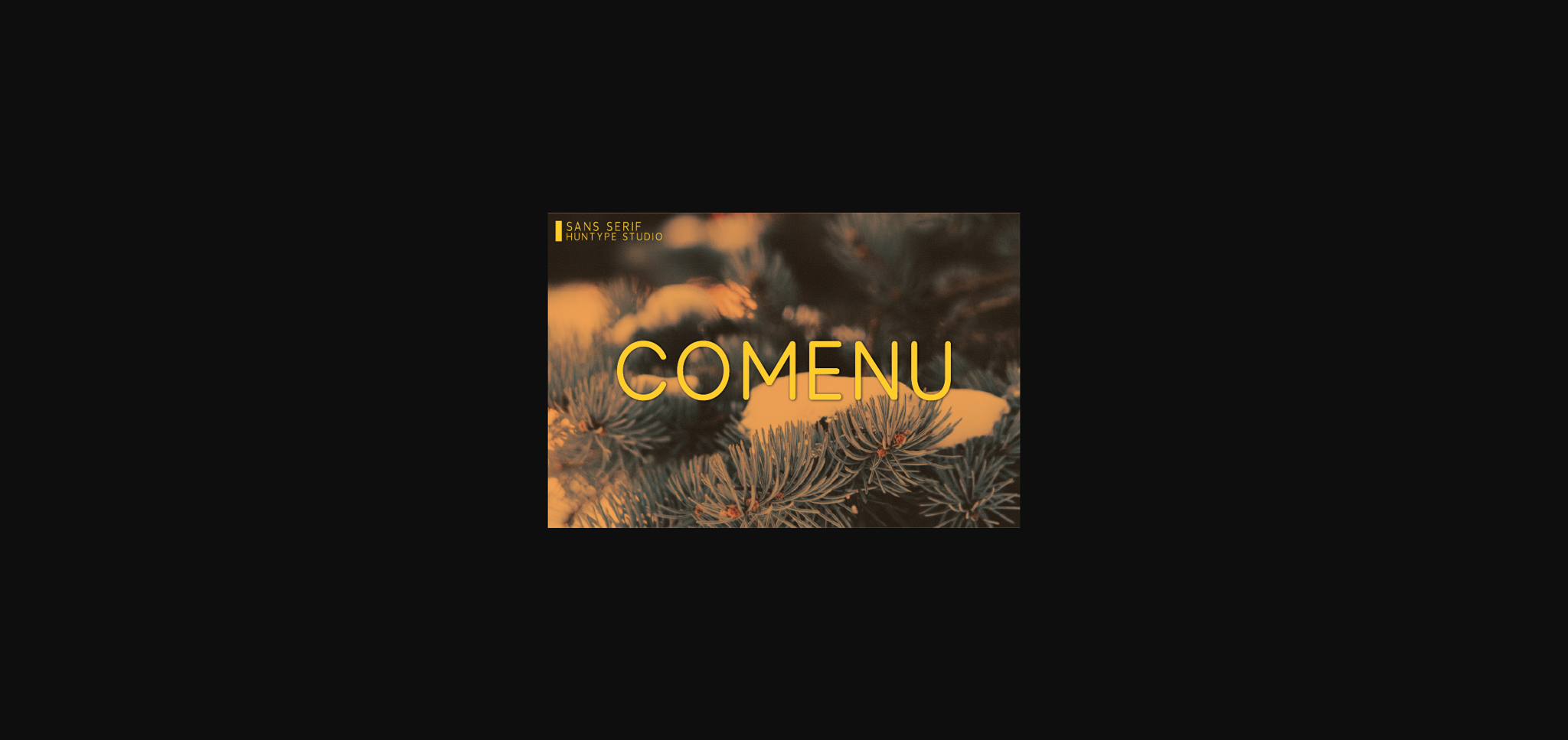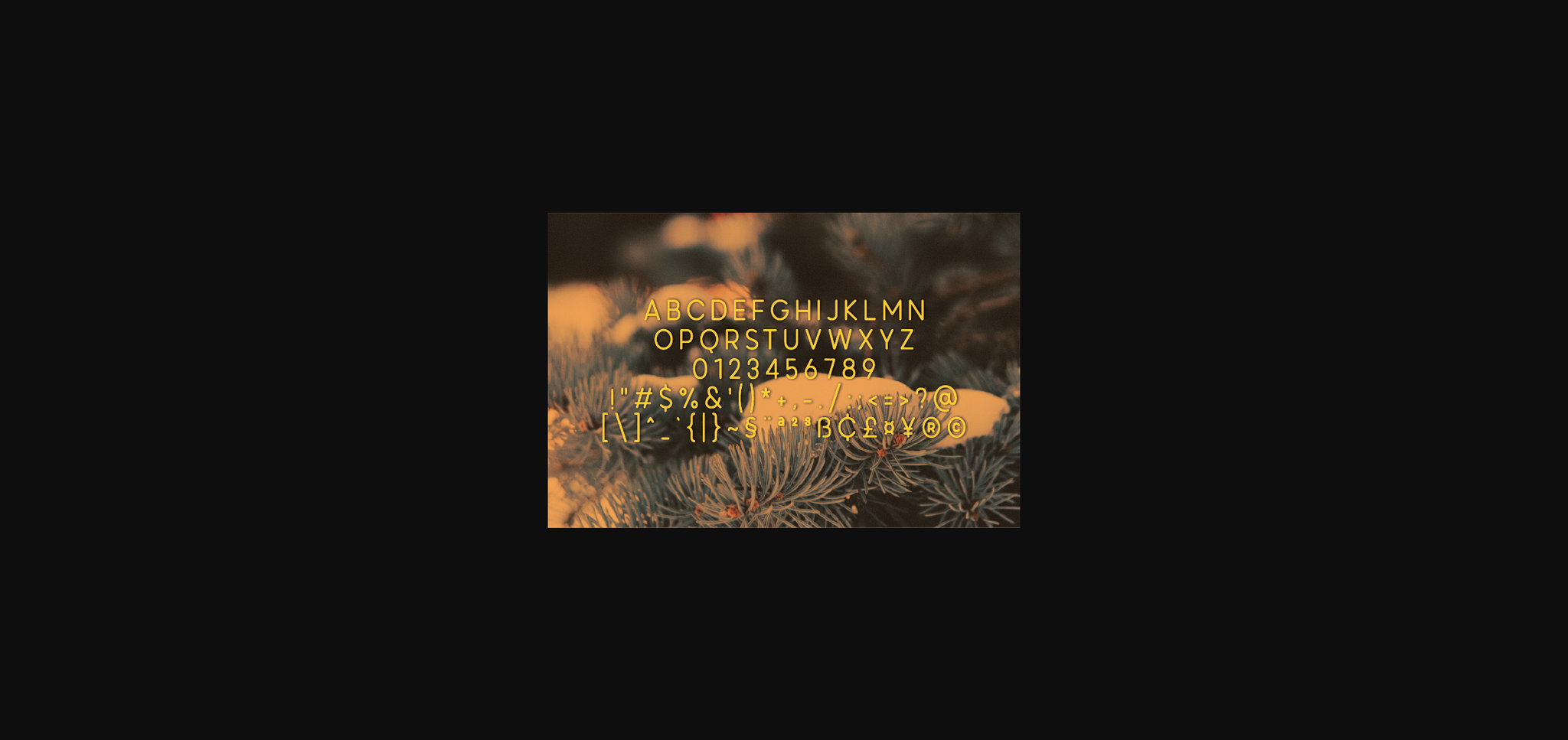
About Comenu Font
Comenu is a modern and clean sans serif font that is versatile and looks great in just about any context. With smooth and clean lines, and just a touch of contrast, Comenu works beautifully for logos, branding, web headings and much more.